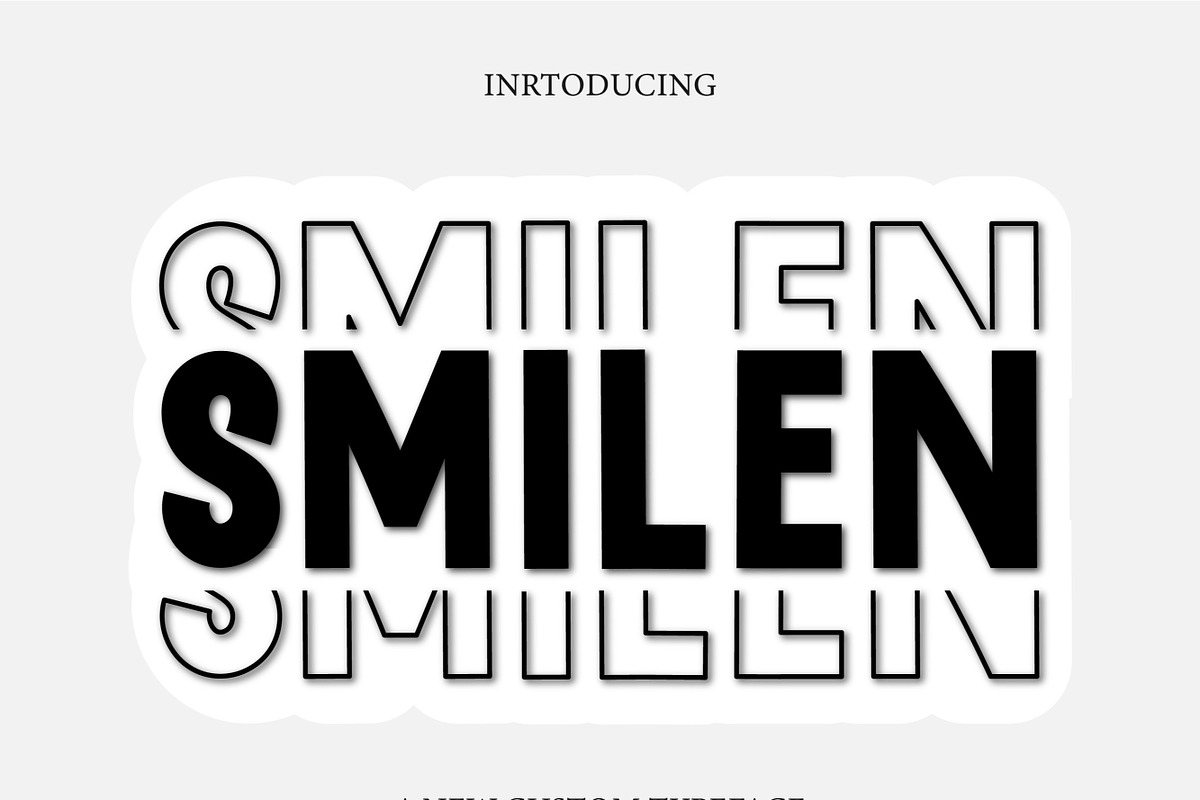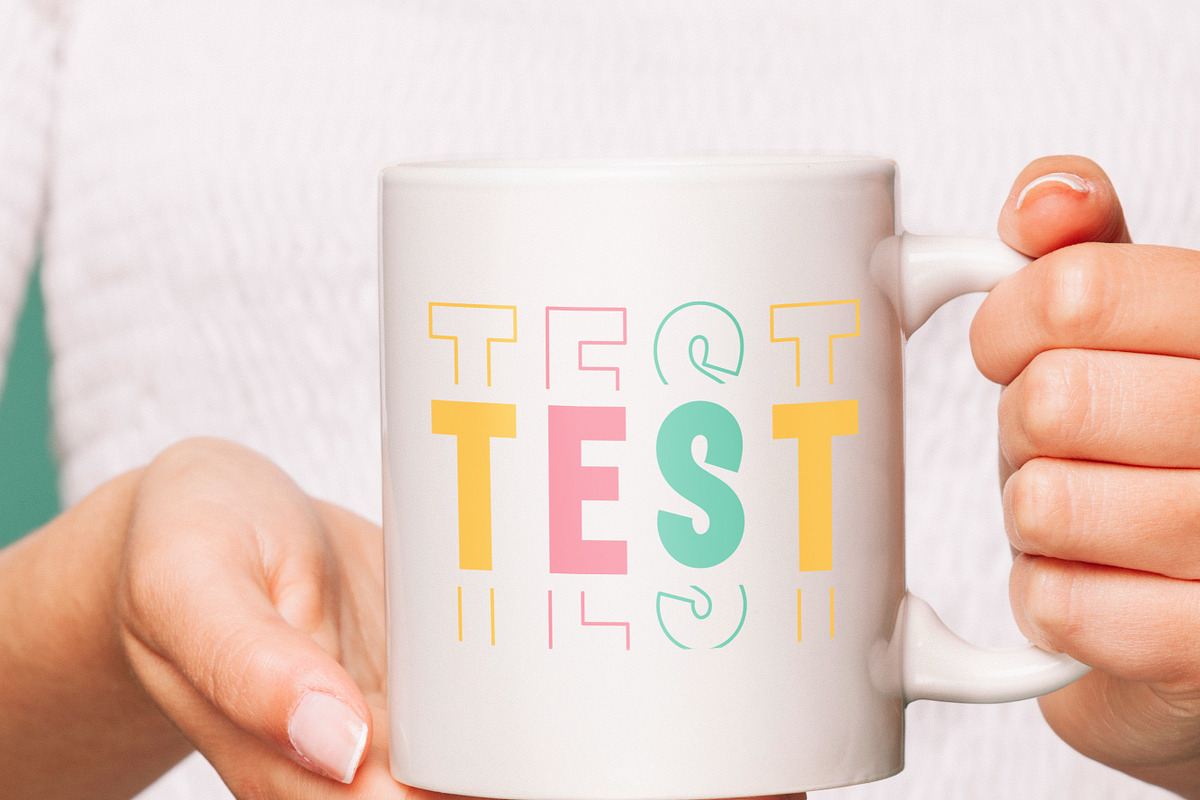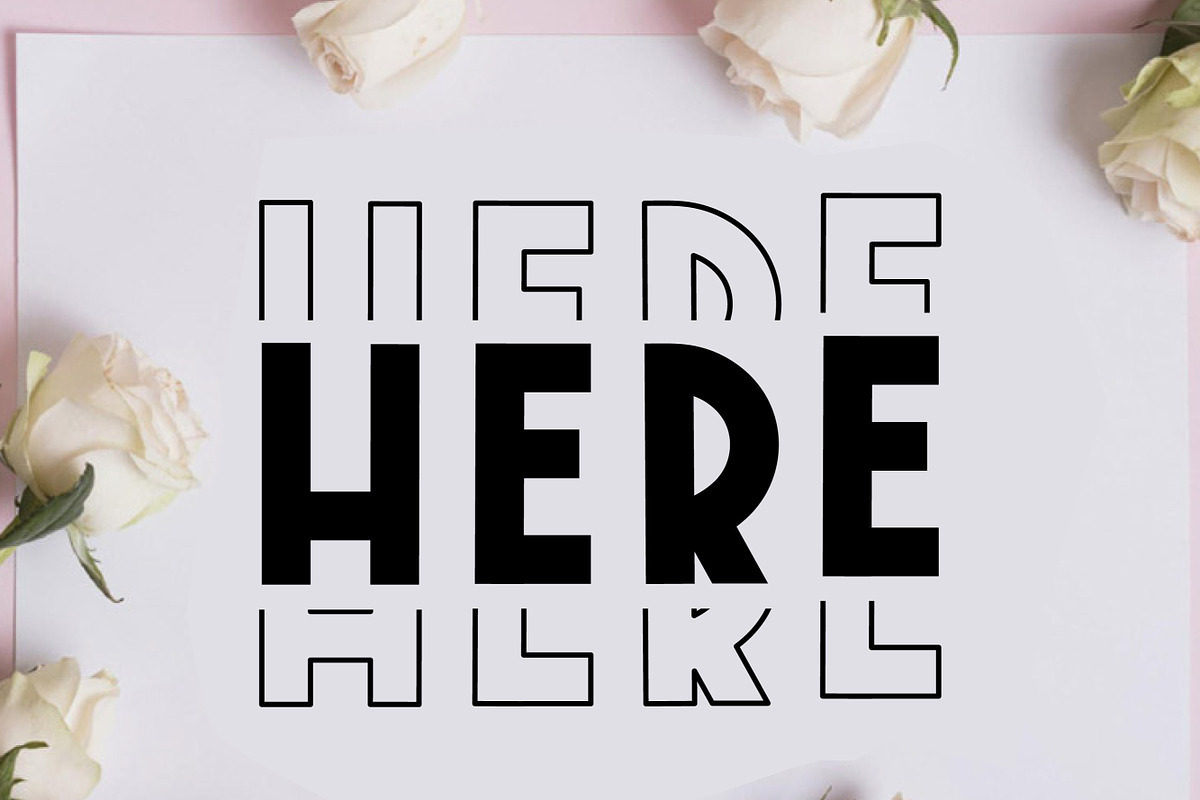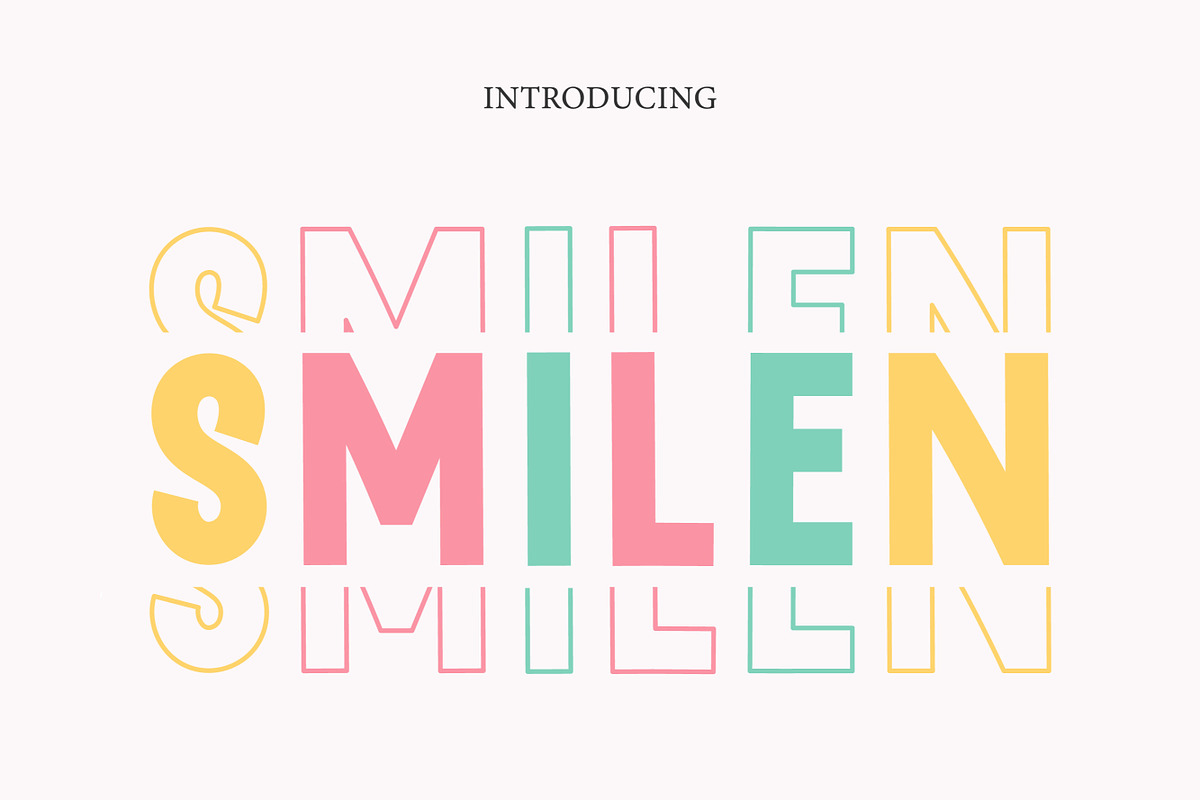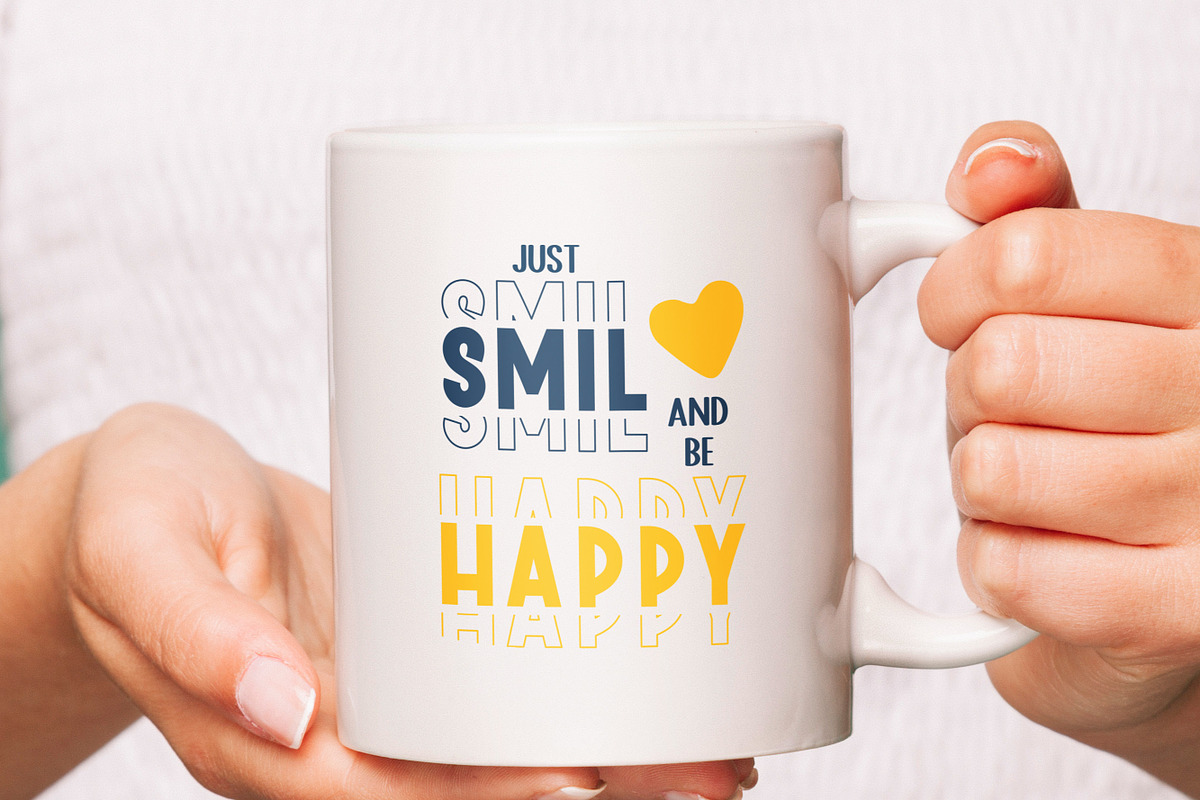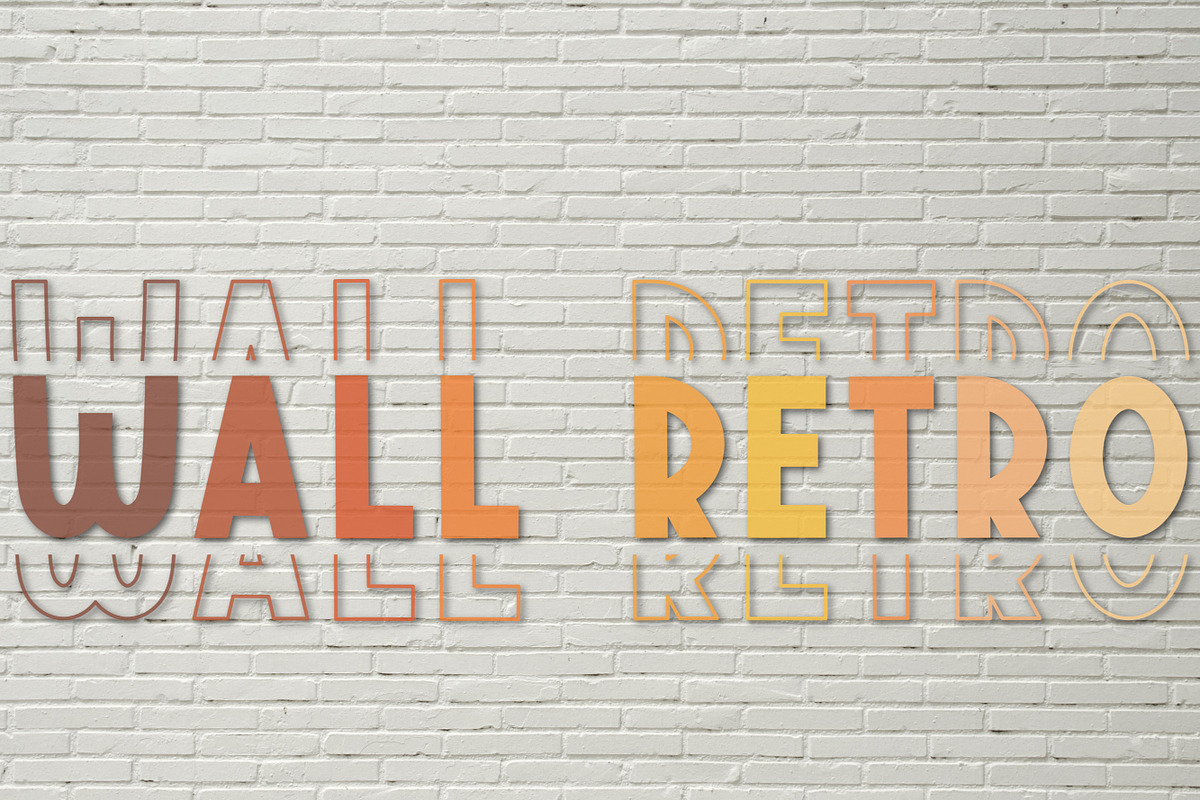
Smilen - Triple stacked
Smilen is an eye-catching stacked font with clean lines and a minimalist design, making it the perfect choice for headlines and short titles. Its bold style impacts your design, while its glowing letter maintains a professional and sophisticated look.